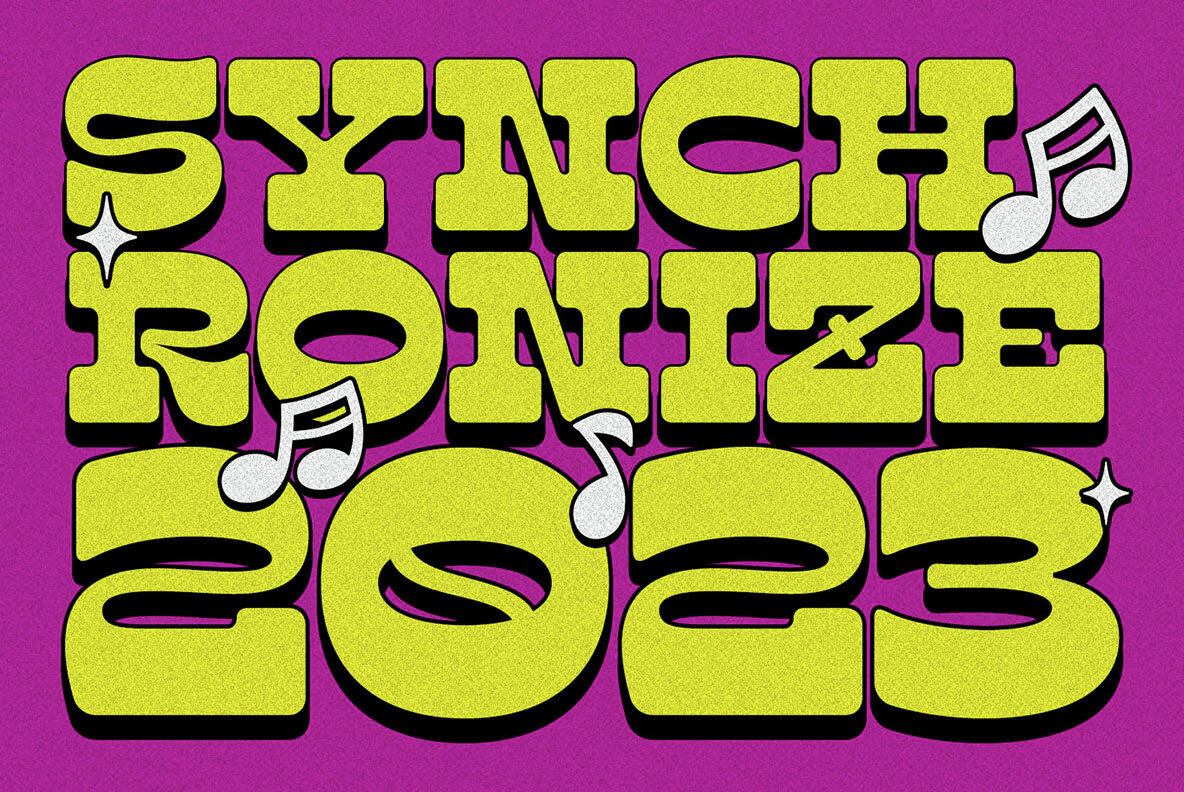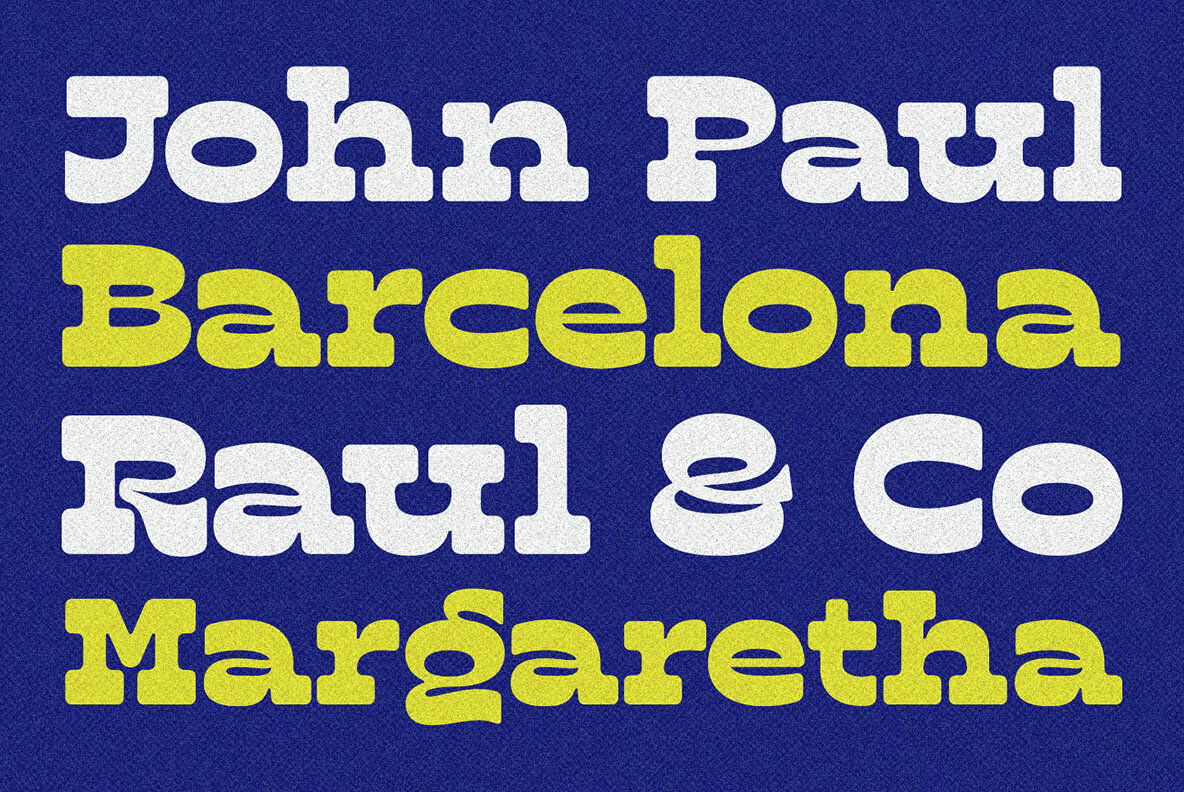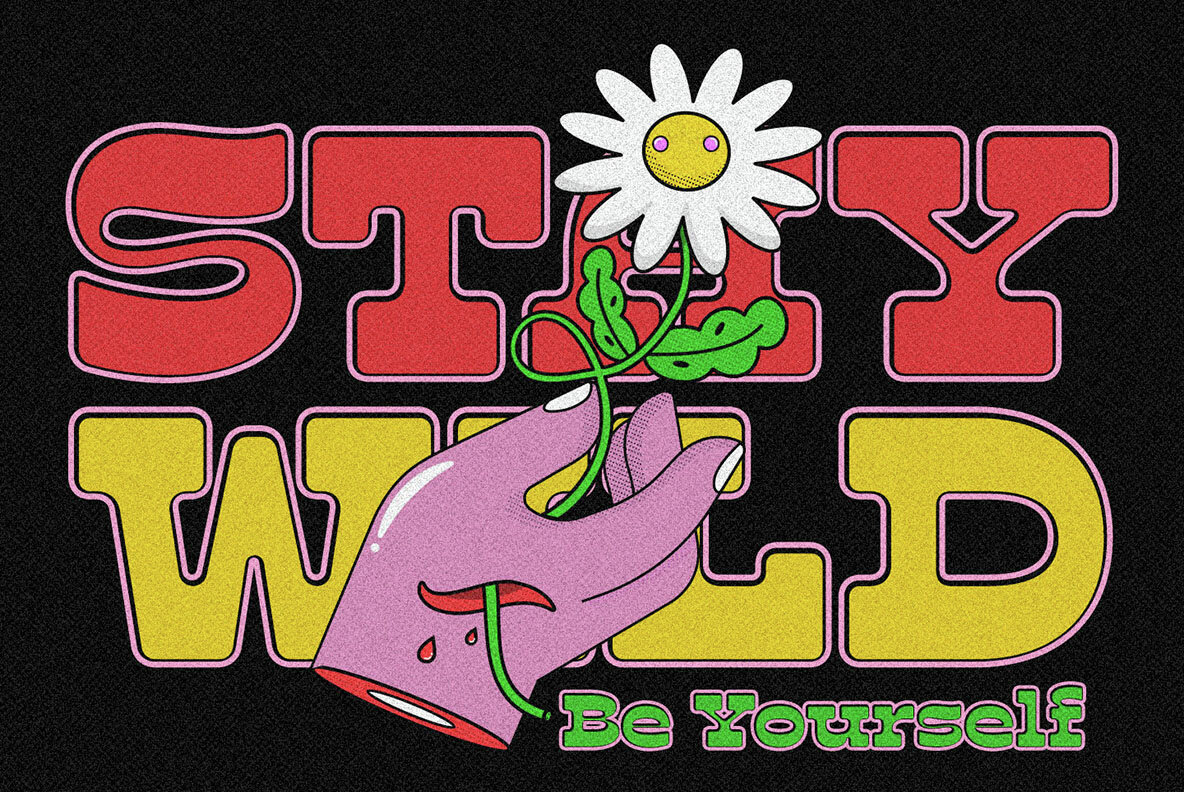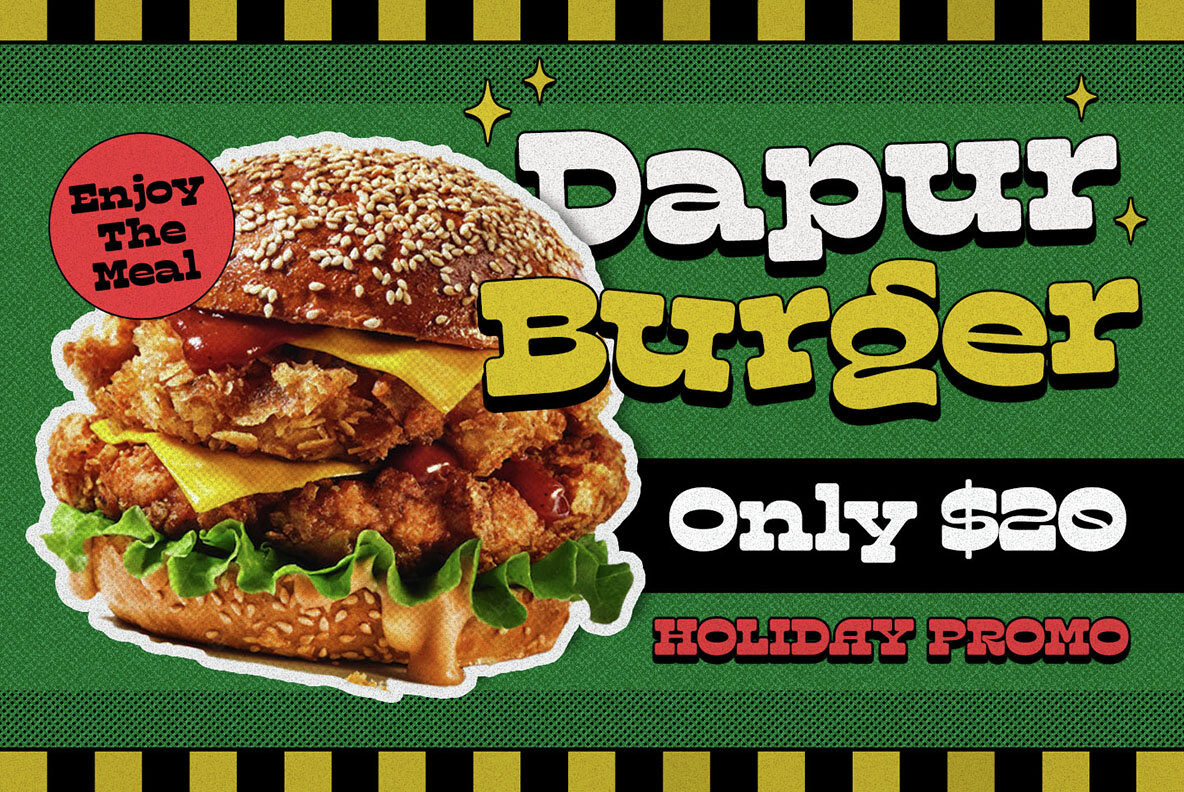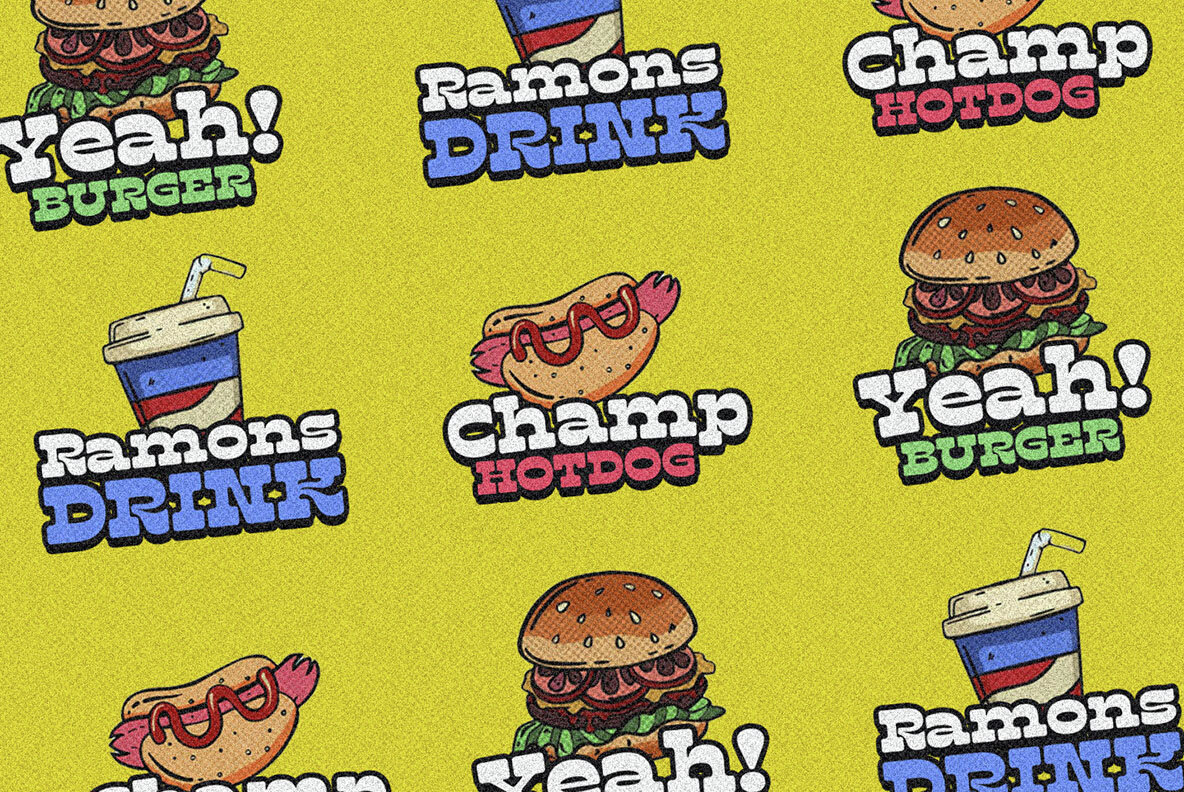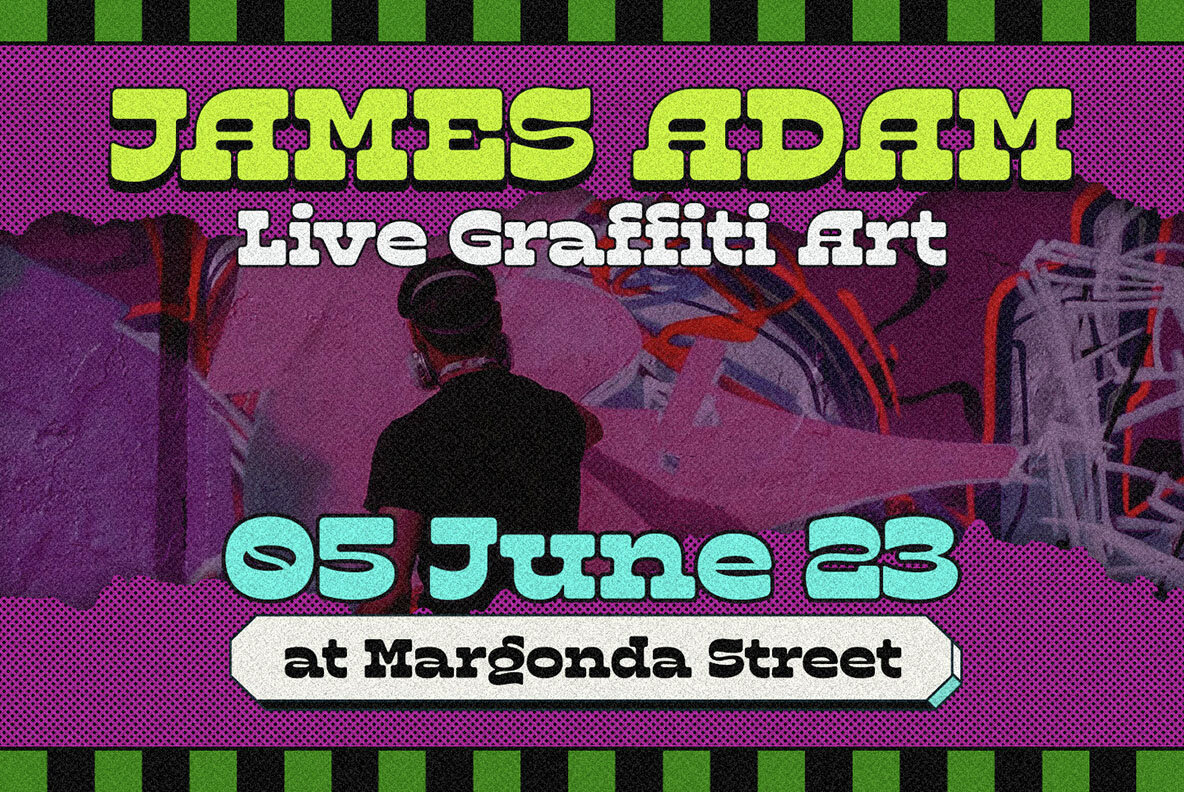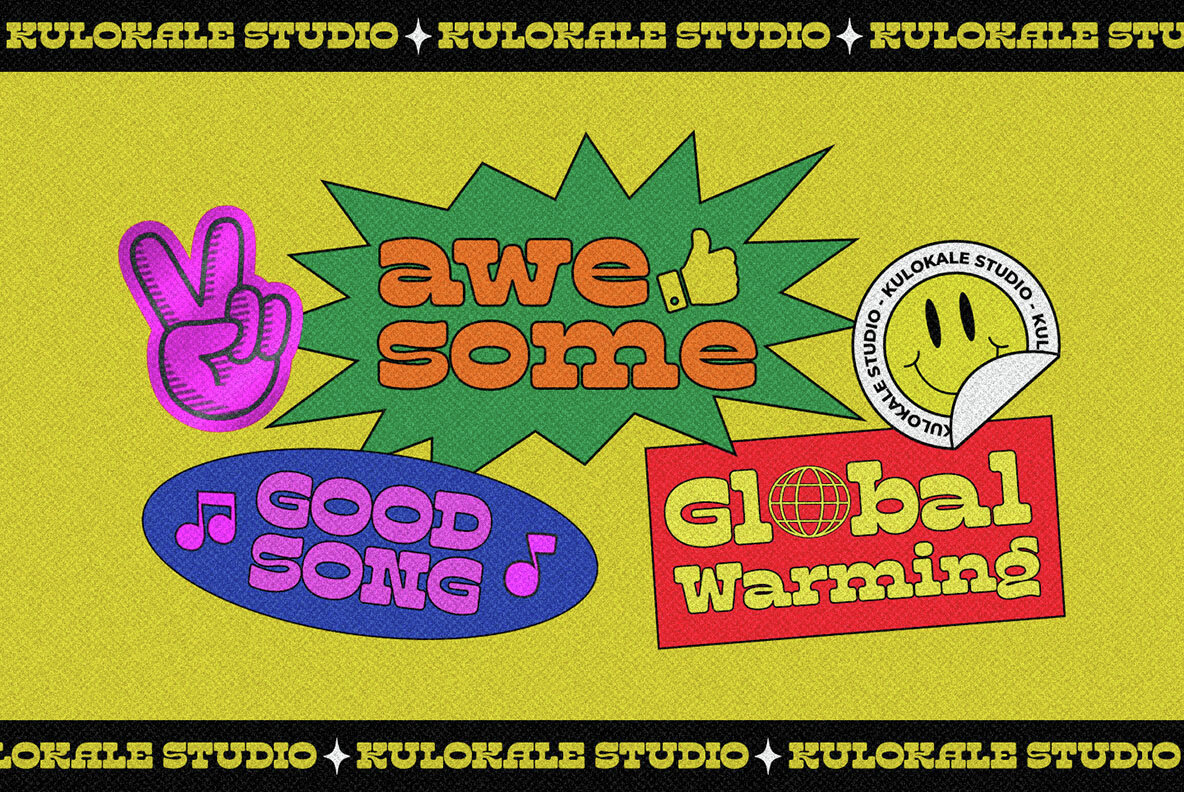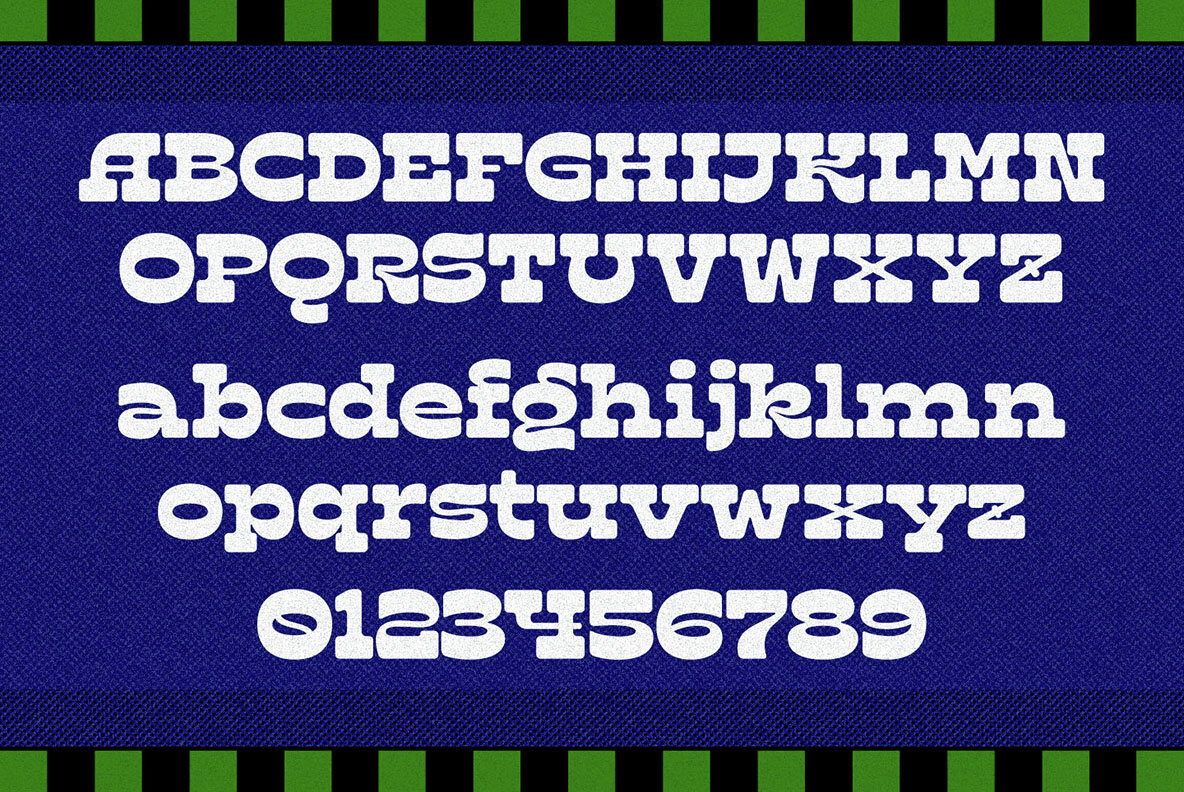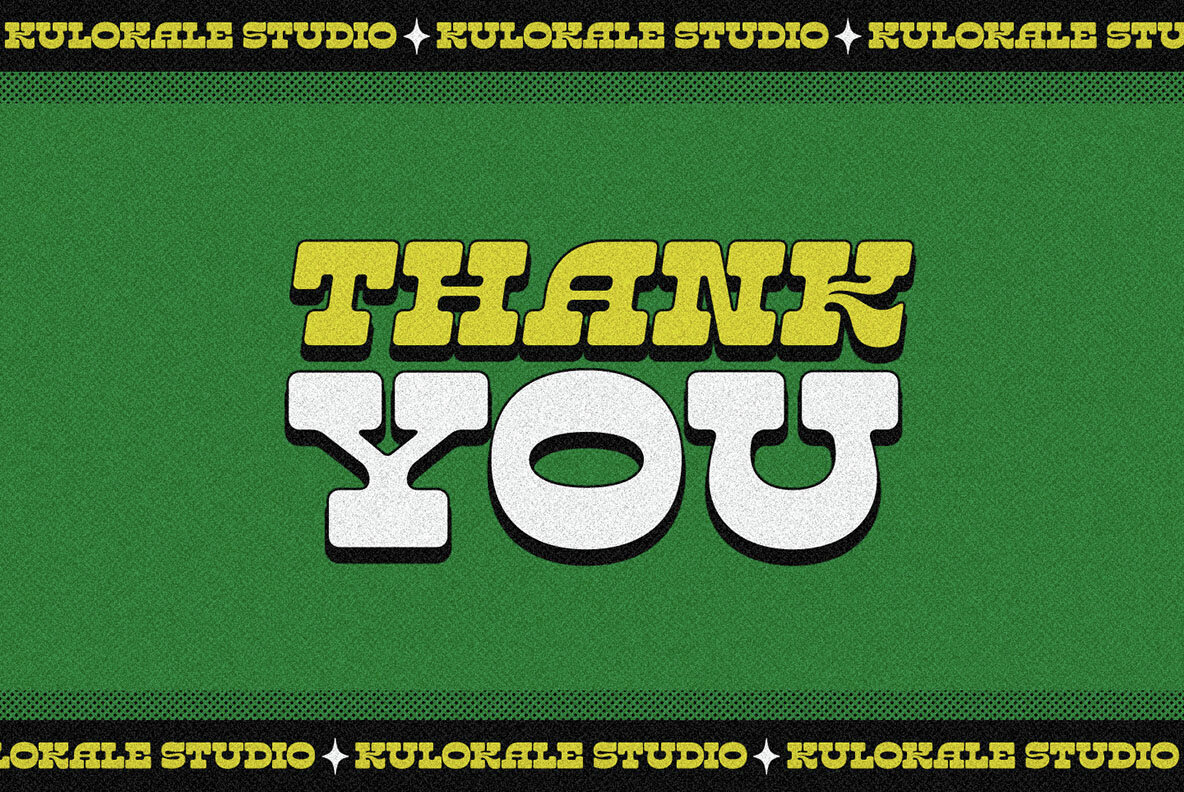
Kaghe Slab Font
Kaghe Slab is a groovy retro display slab font. Kaghe Slab is well-suited for advertising, branding, logotypes, packaging, titles, headlines, and editorial design. This font comes in 4 styles, Regular, Oblique, Outline, and Oblique Outline version. We highly recommend using a program that supports OpenType features and Glyphs panels such as Adobe Illustrator, Adobe Photoshop CC, Adobe InDesign, or CorelDraw, so you can see and access all Glyph variations. This font is encoded with Unicode PUA, which allows full access to all additional characters without having special design software. Mac users can use Font Book, and Windows users can use Character Map to view and copy one of the extra characters to paste into your favorite text editor/application.